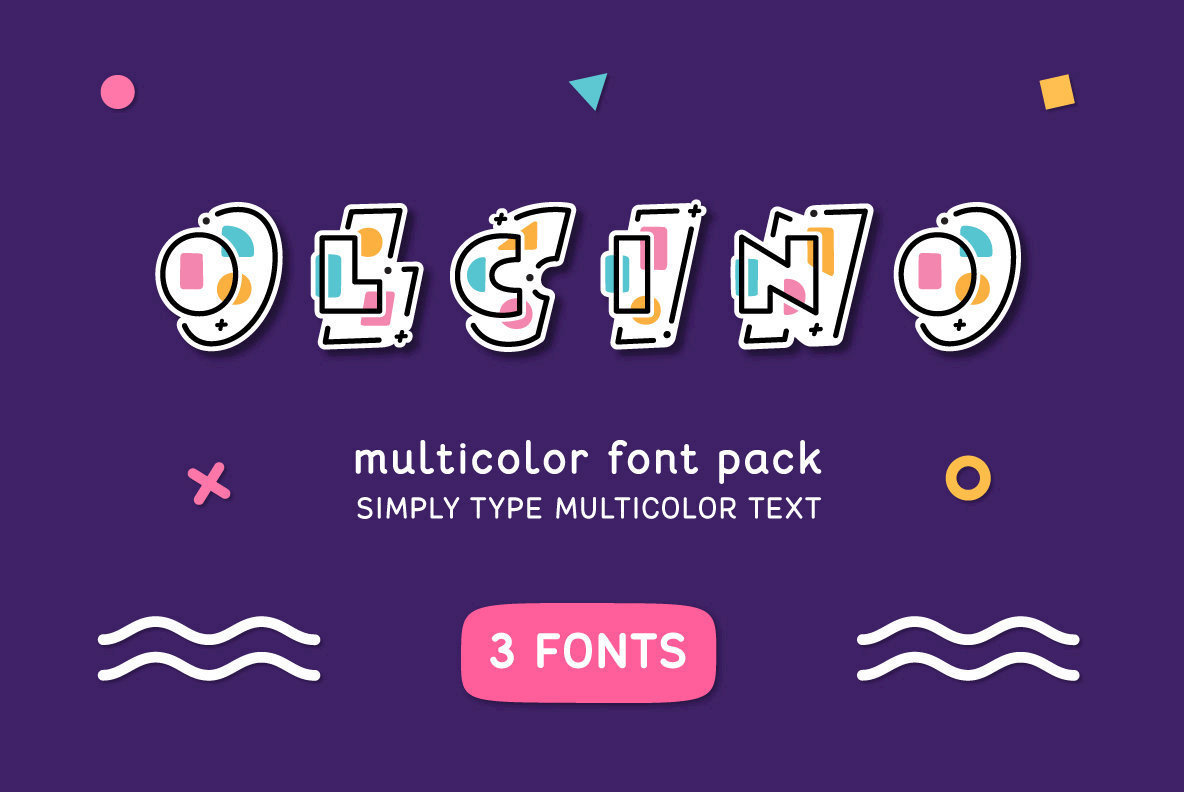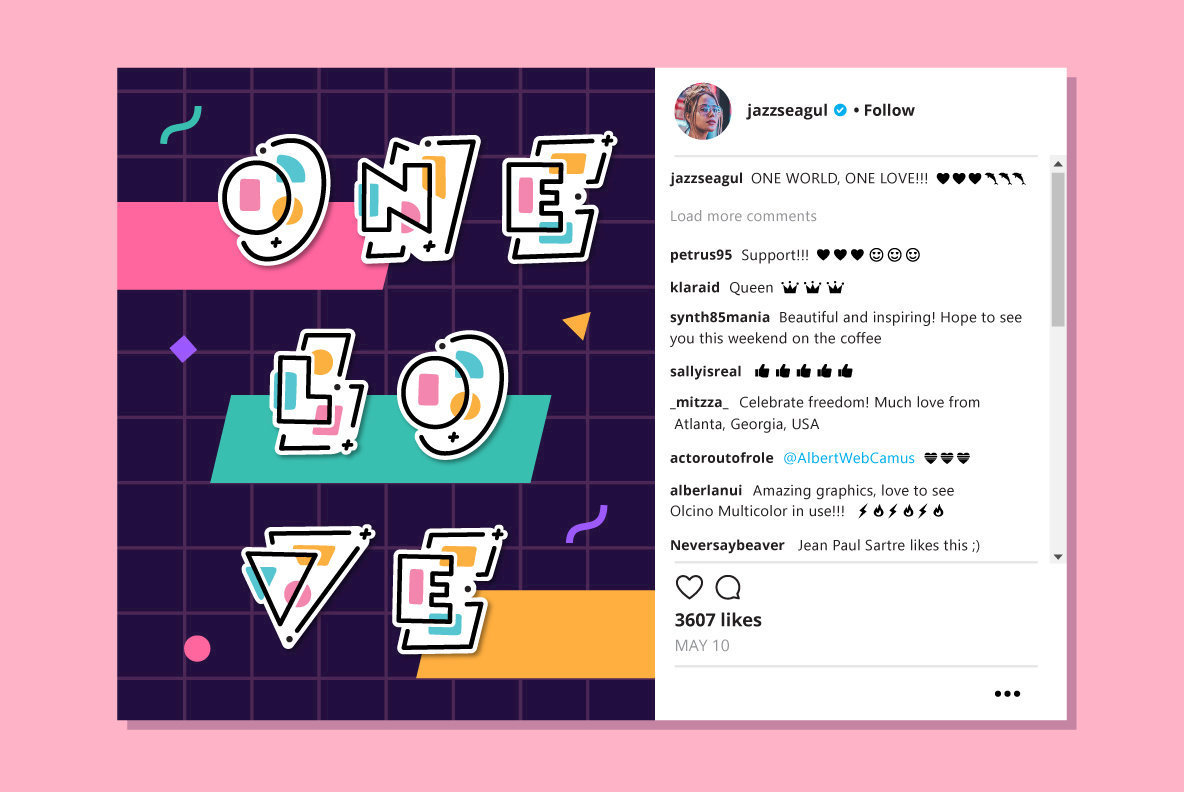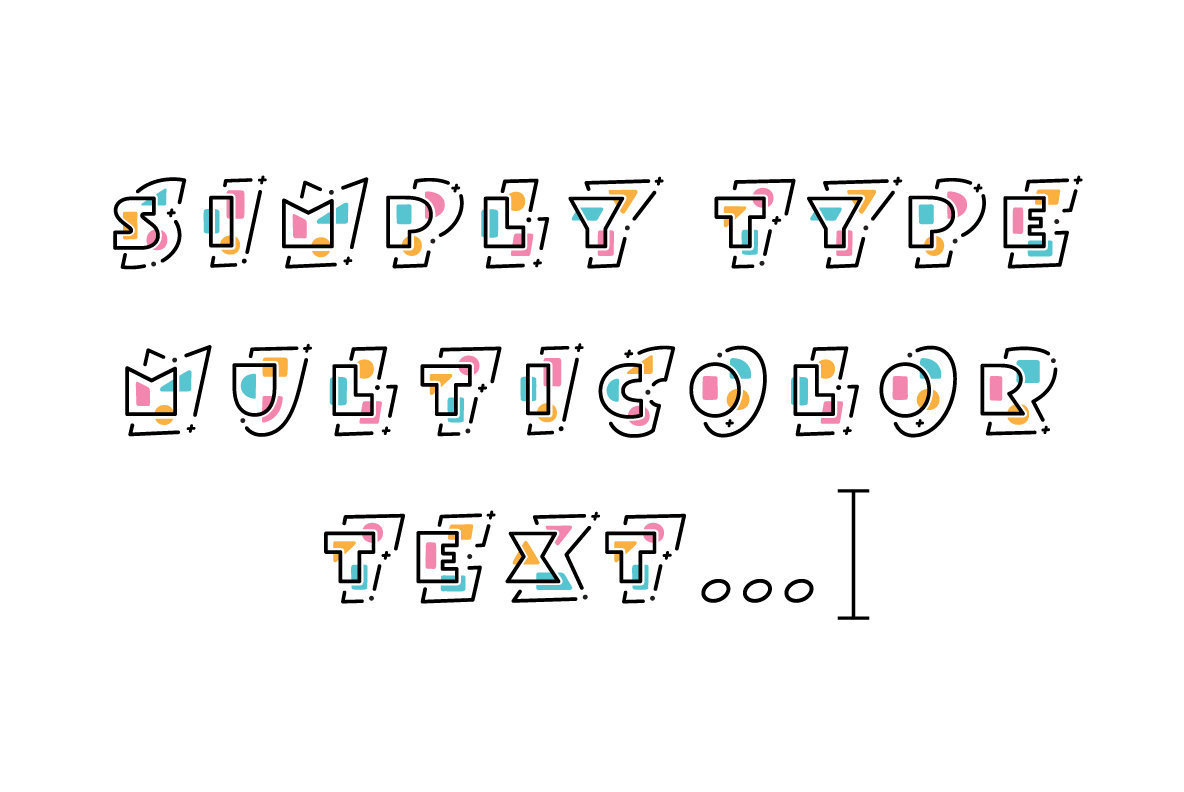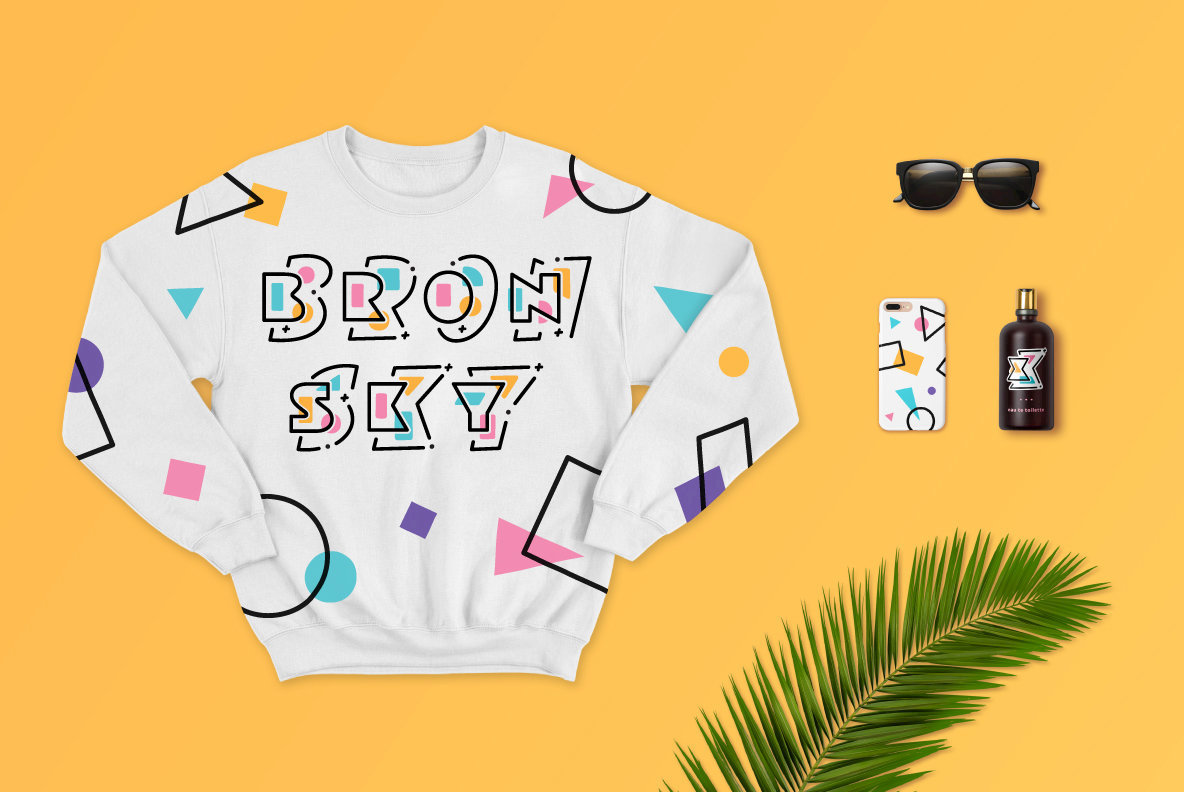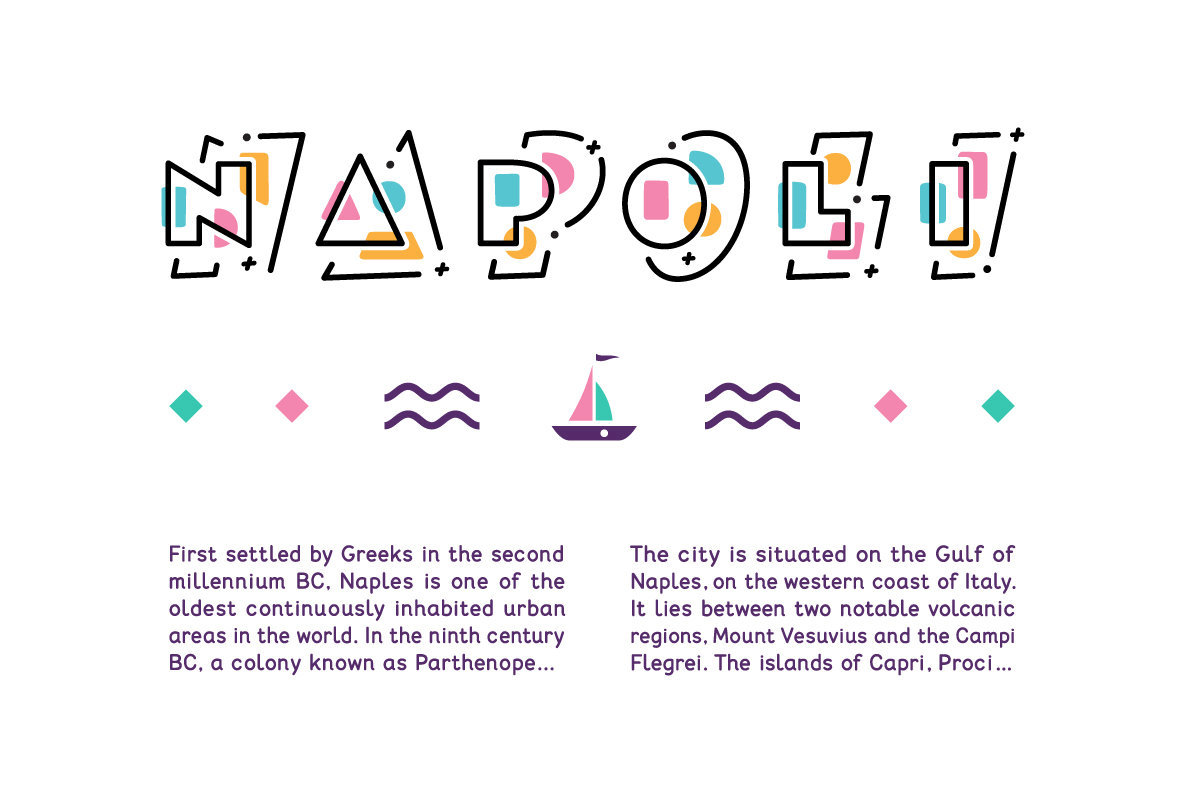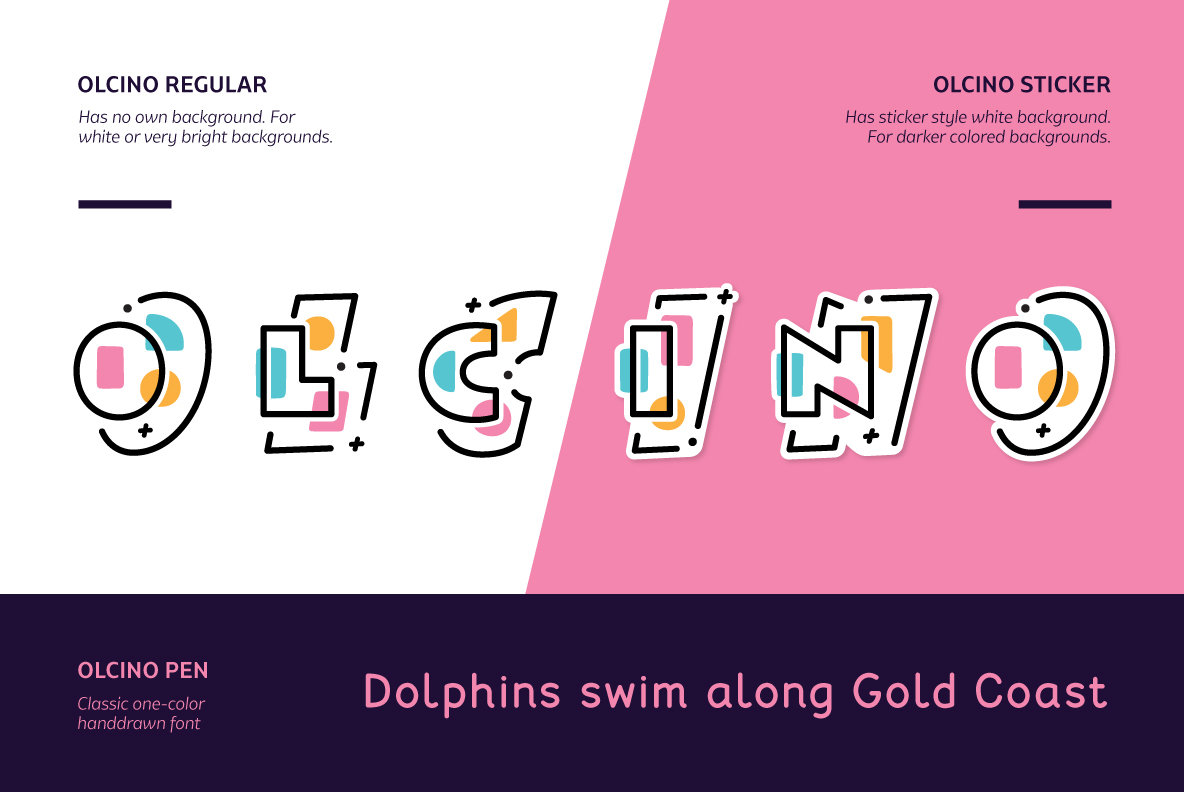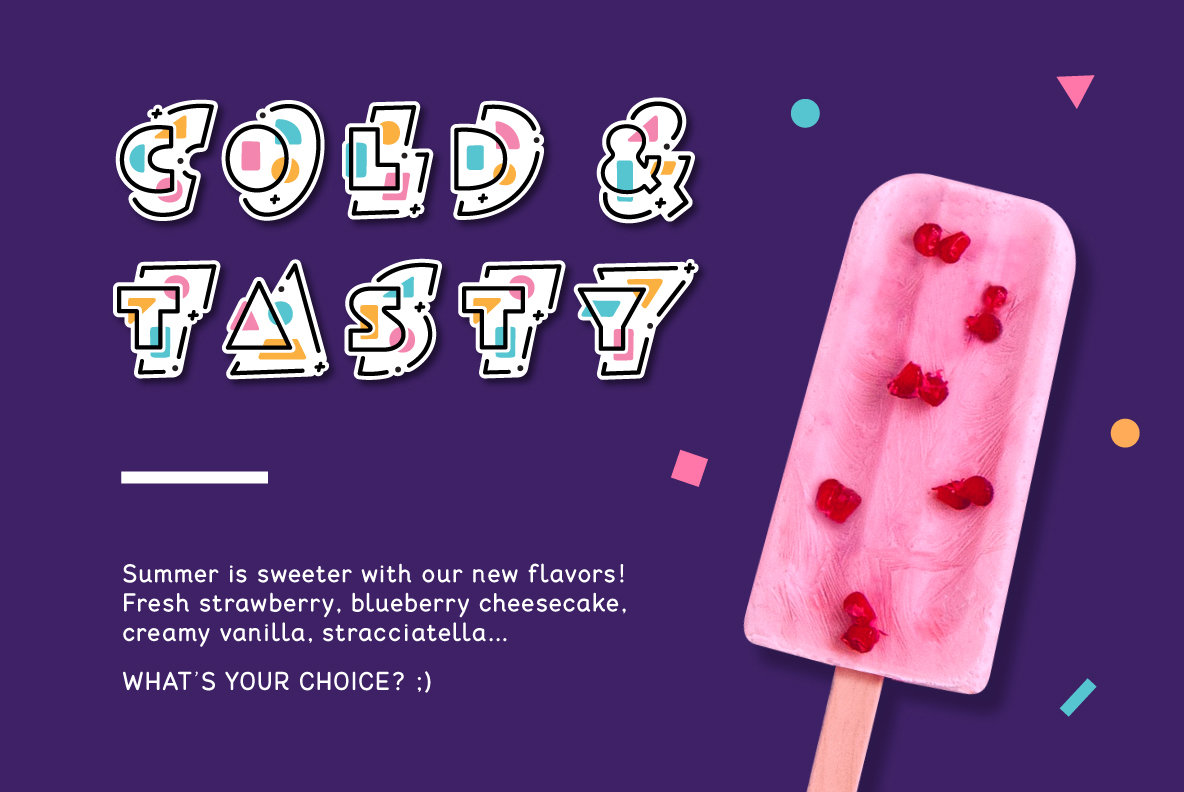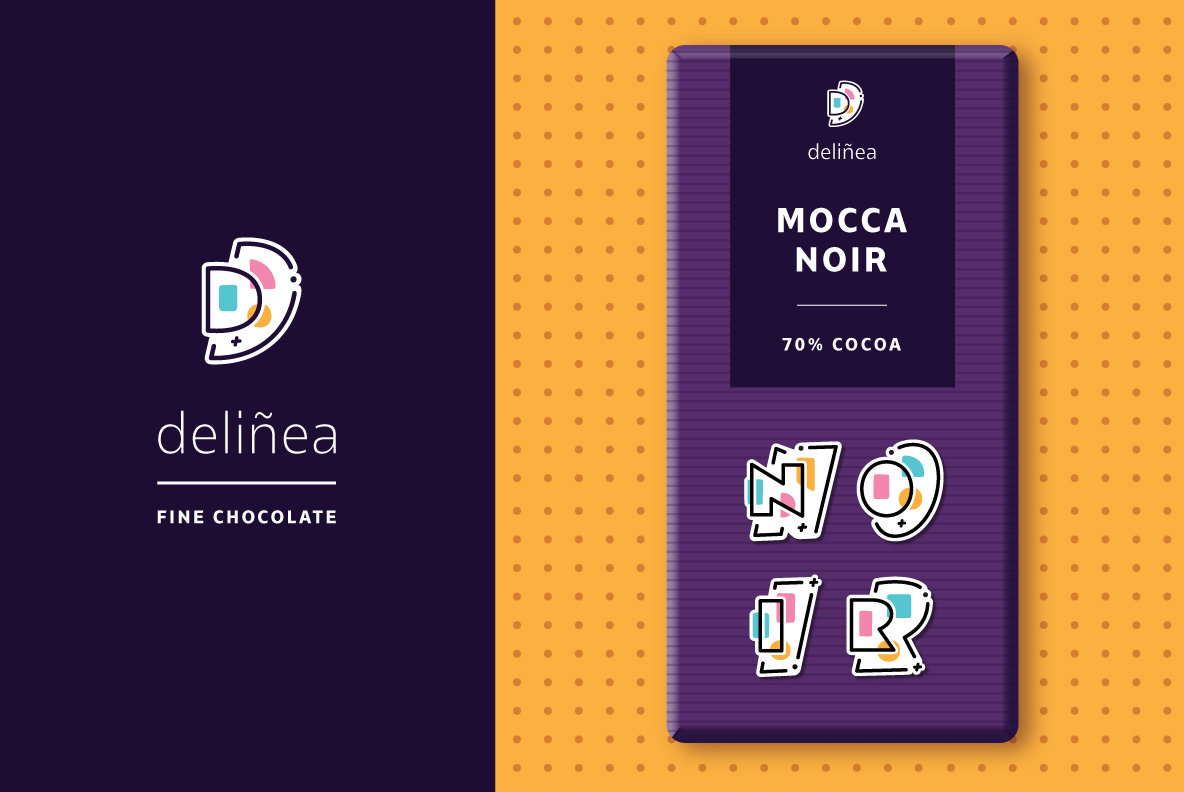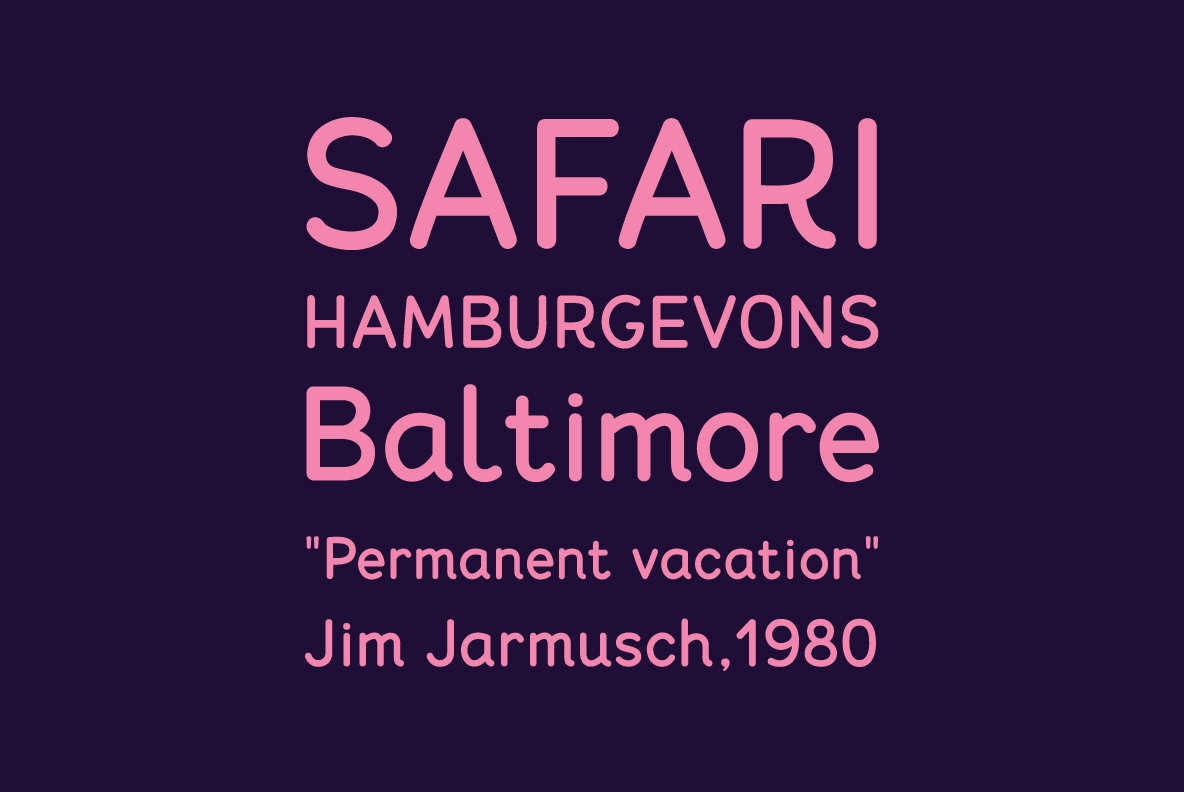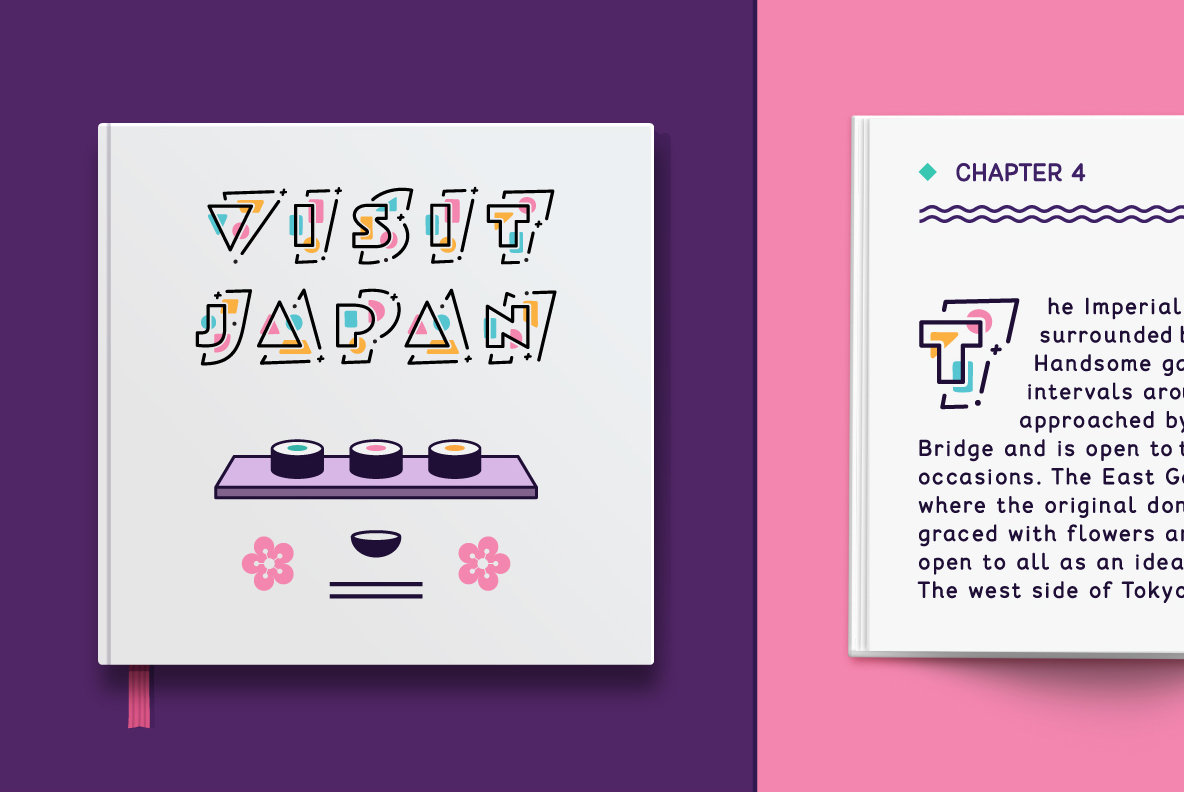
I am excited to announce the release of the Olcino Multicolor font pack! It is super easy to use and it works just like any other font. In other words: SIMPLY TYPE MULTICOLOR TEXT!
Olcino is charming and easy like a Sunday morning. ;) It celebrates freedom, love and peace and is inspired by the joy of life, optimism, by meeting new people, visiting new places, and enjoying new experiences. So it's no surprise that the first sketches for it were made while looking at the beautiful Aegean Sea. :)
Olcino uses a gentle yet juicy color scheme. Its fresh and attractive look is perfect for making eye candy social media posts – pssst... be among the first to use it and get more followers! ;)
The elements of every character are very carefully visually balanced, making each letter a separate piece of art, perfect for logo usage.
Olcino is crafted with animation in mind. Distinct shapes and lines can be used for making stunning animations very easily (tip: use the "Olcino Sticker" style for animation, it features white gaps as separate objects).
In addition to the two styles of the Olcino Multicolor font, you will also get Olcino Pen, a regular (single color) font. (Olcino pen was previously sold as a separate font named Postcard, more info available on the link below).
HIGHLIGHTS: - Super easy to use. It installs and works like any other font, despite being multicolor. - Perfect for social media posts, posters, logos, and animation. - Greatly accepted by renowned design and marketing professionals, whose useful advice is incorporated into the design. - Absolutely unique, Olcino is the first typeface of its kind on the market. - Brings color, fun, love, energy, and optimism in a refined artistic and stylish way. - Two multicolor styles. - Classic "single color" font Olcino Pen comes as a bonus.
Olcino Sticker, multicolor OTF font (simply type multicolor text). Each letter has its own white background. It can be used over any background, although for very bright backgrounds Olcino Regular might be a better choice, to help avoid the odd low contrast between the white font background and the bright background behind it. But try and see what works best for you! :)
Olcino Pen, one color font which resembles medium size pen handwriting.